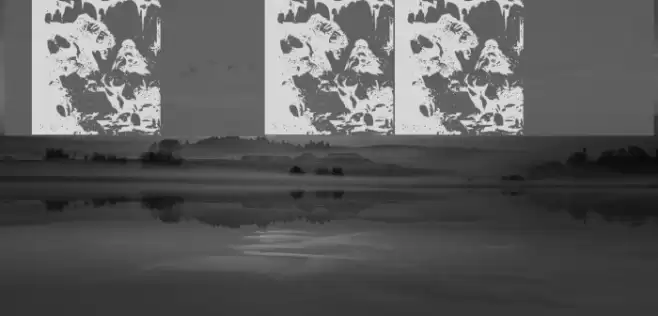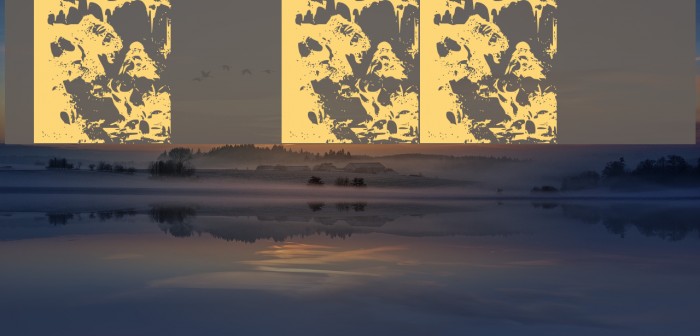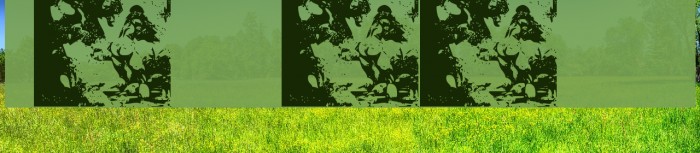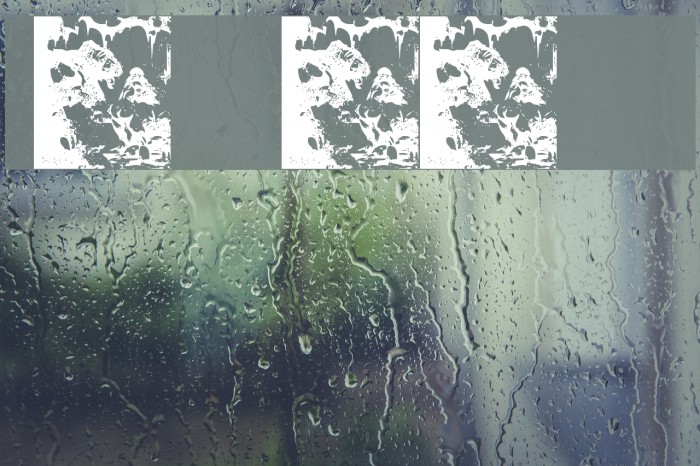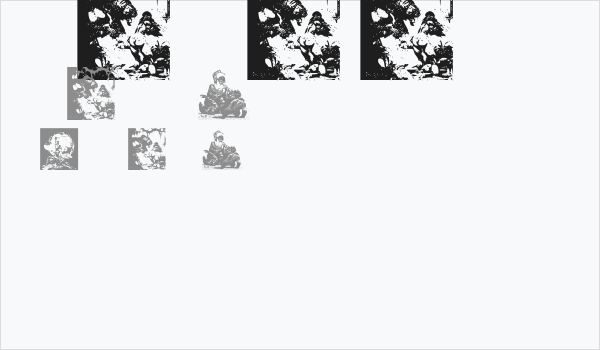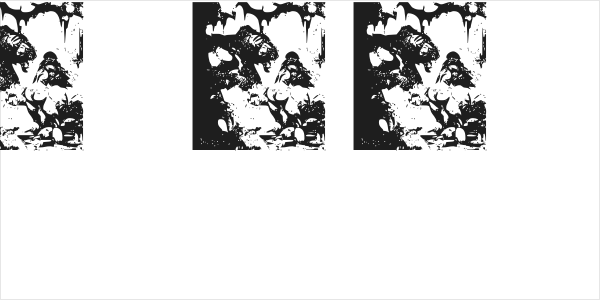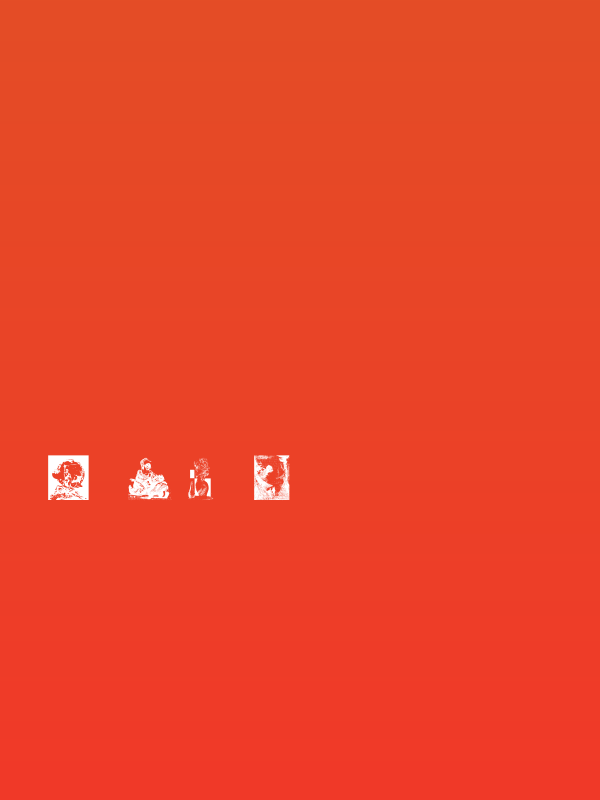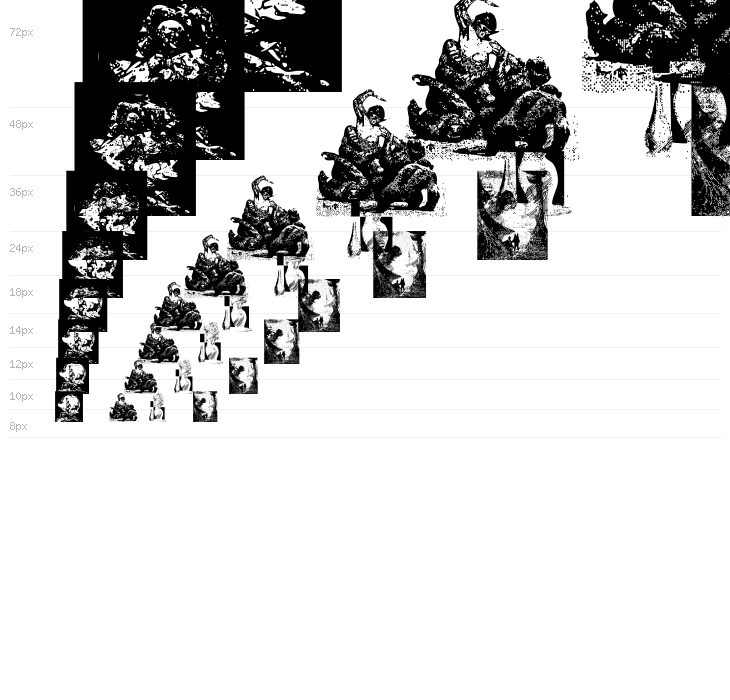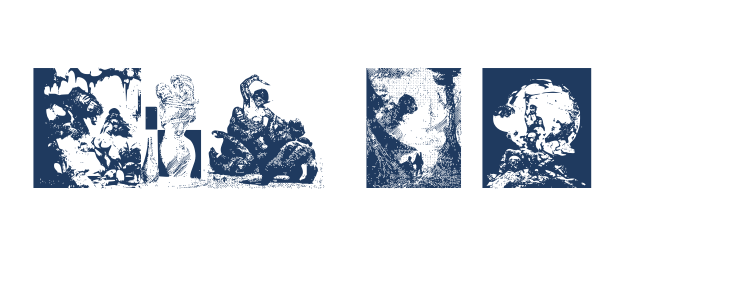
FrazettaBats Test1 Font
FrazettaBats Test1 Description
Highly detailed, illustrative letterforms where each character is composed of intricate fantasy artwork, blending figures and scenes into the shape of letters and symbols.
Elaborate, pictorial font with fantasy illustrations forming each character from Uncategorized fonts.
- Proposed Projects: Book covers, fantasy posters, graphic novels, album art, themed event branding.
- Overall Style: Decorative, Fantasy, Artistic
- Use Case: Headlines, Logos, Posters, Artistic projects